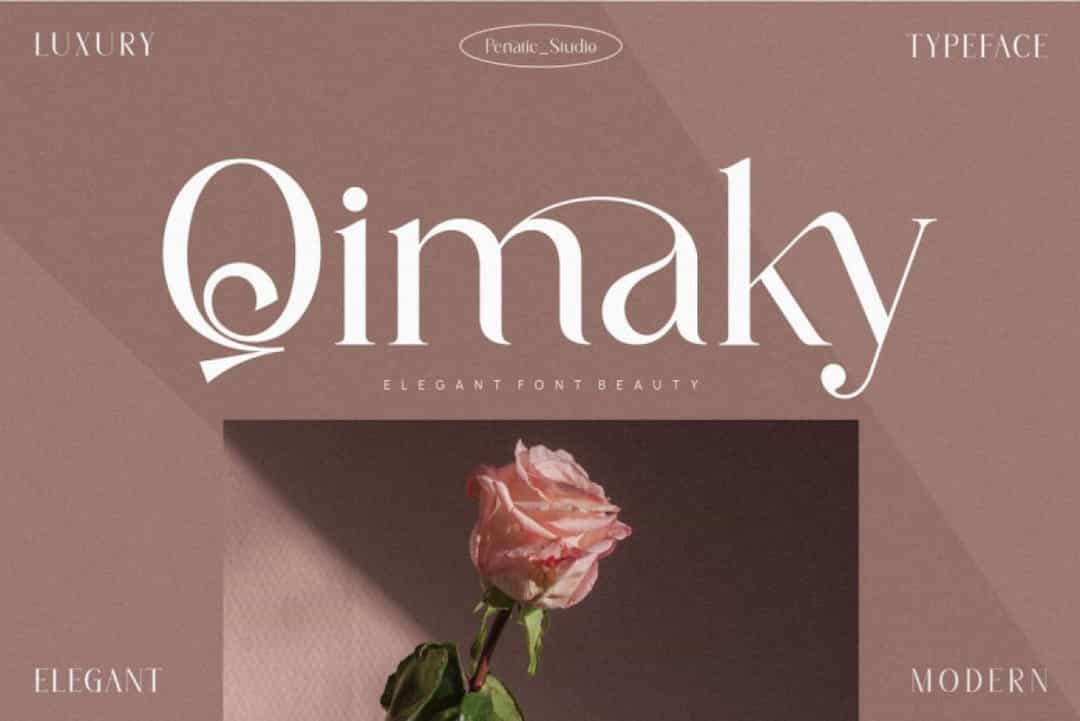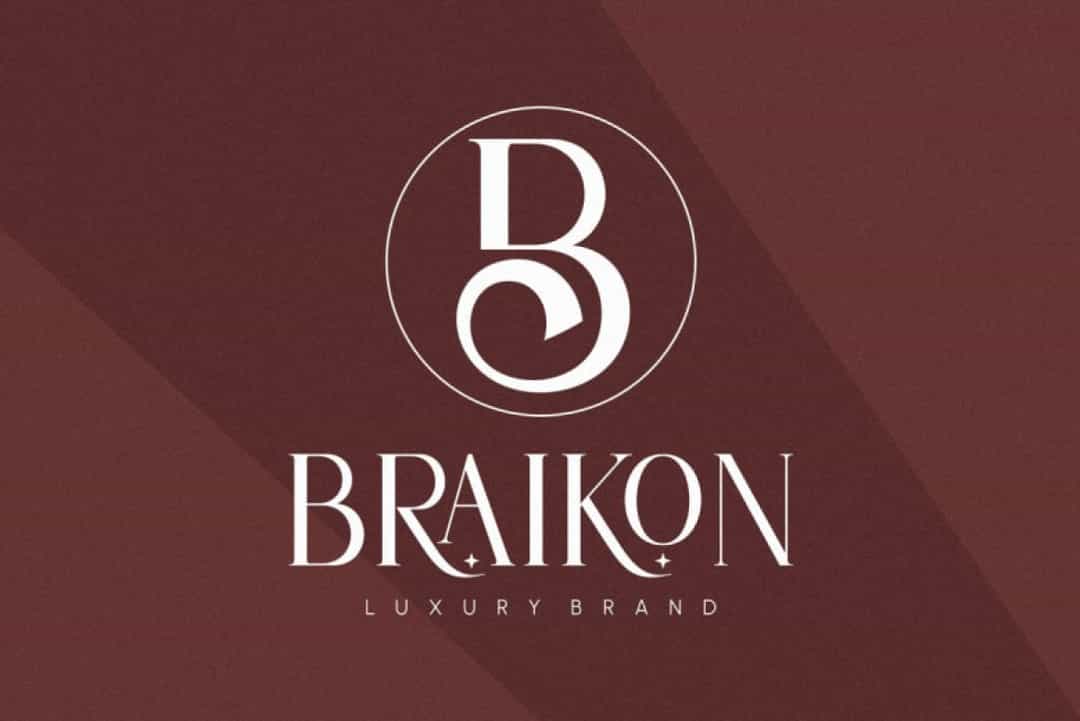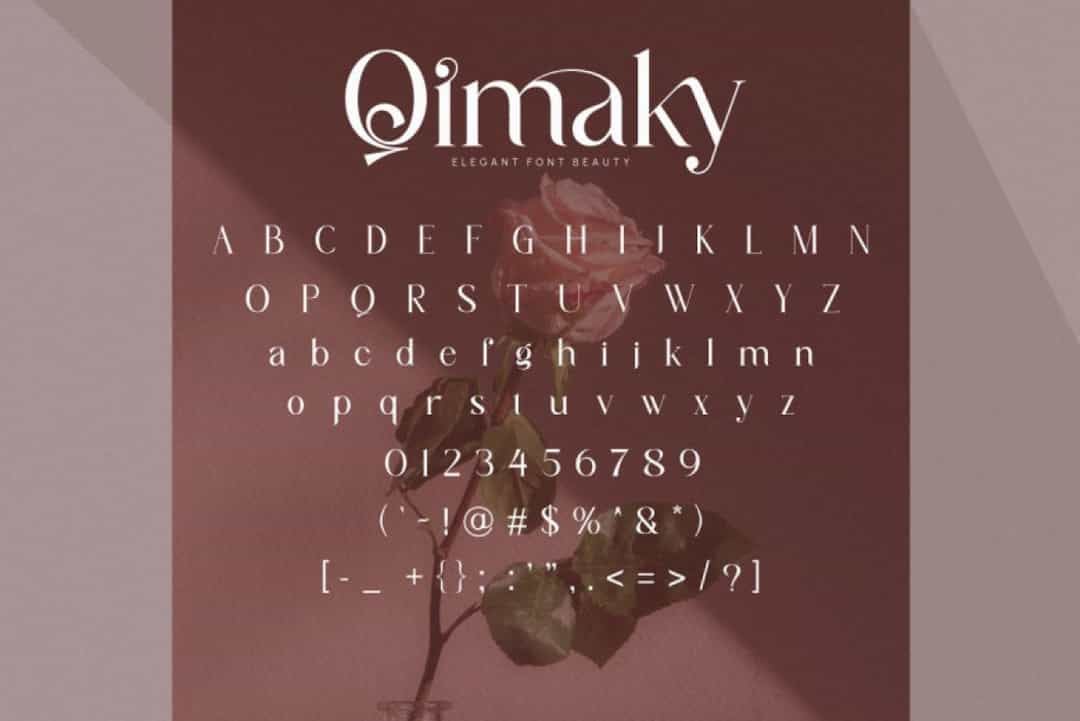
Qimakyis modern serif typeface was inspired by luxury and refined character. Packed with many ligatures and other letters to make your project appear gorgeous and elegant. Perfect for logos, branding projects wedding designs as well as social media posts advertising packaging products label designs product photographs watermarks invitations stationery etc